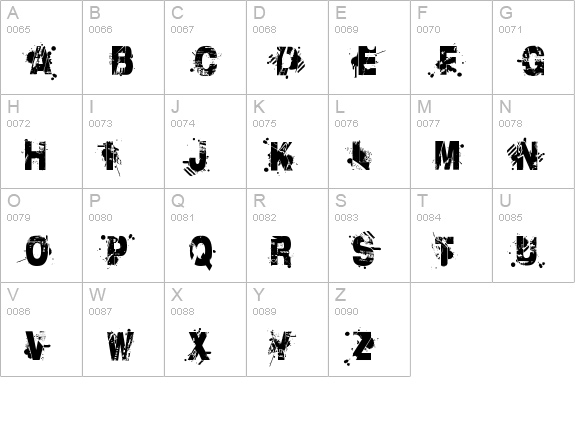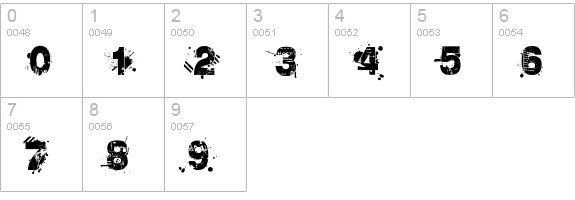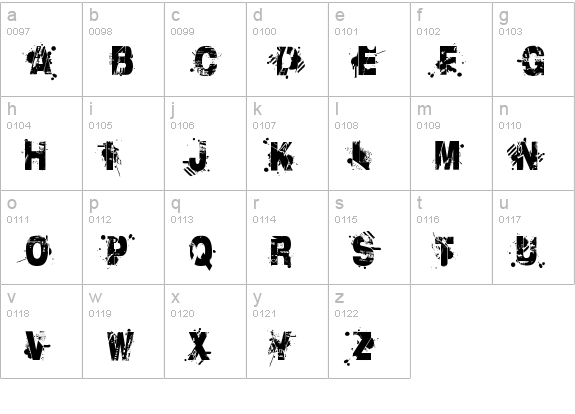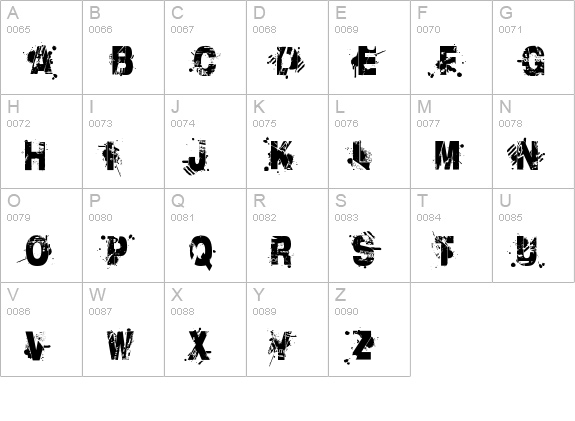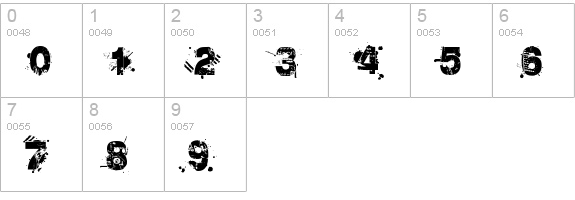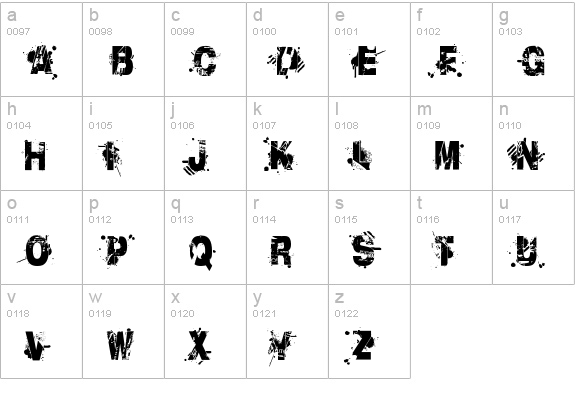
Liberty City Ransom Font Details
The Liberty City Ransom font is a bold and dynamic typeface inspired by the gritty urban landscape of a bustling metropolis. With sharp angles and rugged edges, this font exudes a sense of raw energy and urban flair. Perfect for conveying a sense of rebellion and defiance, Liberty City Ransom is the ideal choice for projects that demand a strong and impactful visual presence. Best of all, the Liberty City Ransom font is freely available to download at FontsMarket.com. Whether you're working on a street art project, a music poster, or a rebellious branding campaign, this font will help you make a bold statement and stand out from the crowd. Download it today and unleash your creativity with Liberty City Ransom.